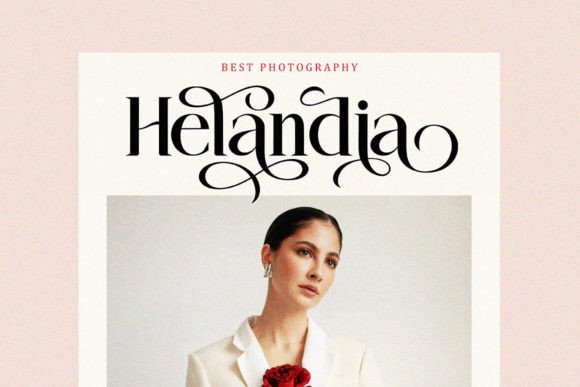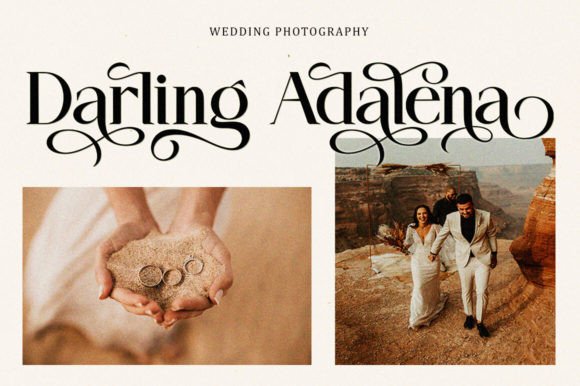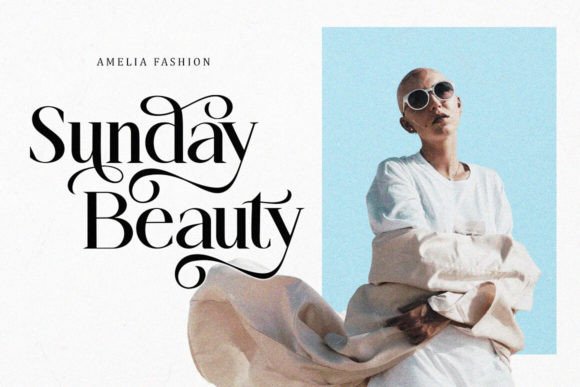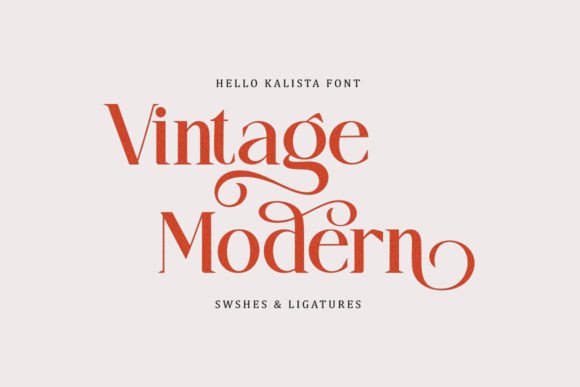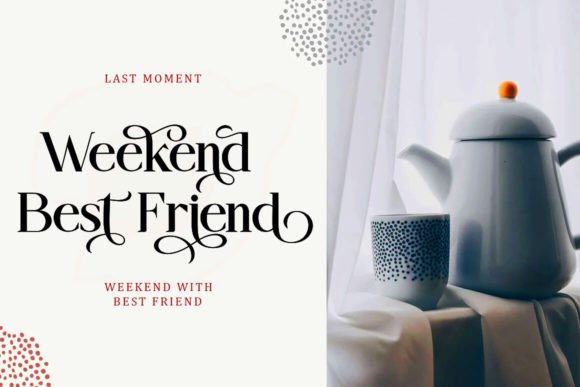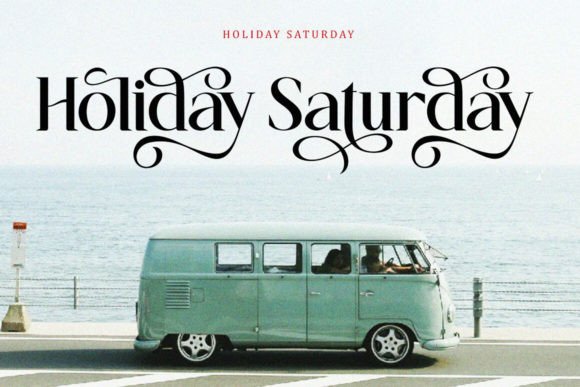
Introduction to Hello Kalista Font
Hello Kalista is a beautiful and versatile serif font.
Key Features of Hello Kalista Font
Why Choose Hello Kalista Font?
Hello Kalista Font offers exceptional quality and versatility, making it a valuable addition to your design toolkit. Whether you’re creating for personal projects or commercial use, Hello Kalista Font delivers professional results.